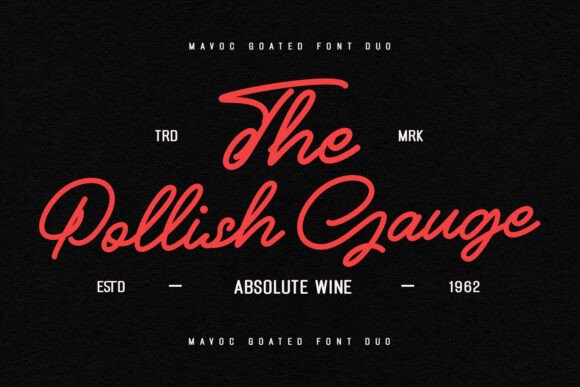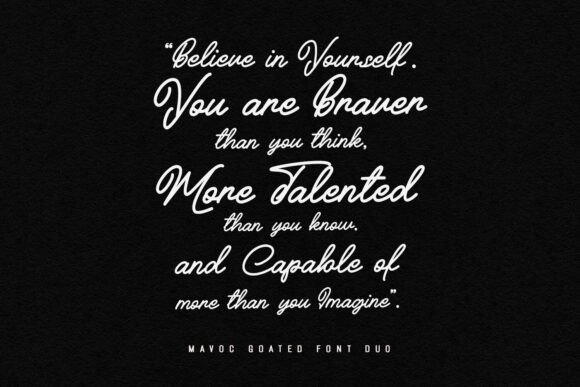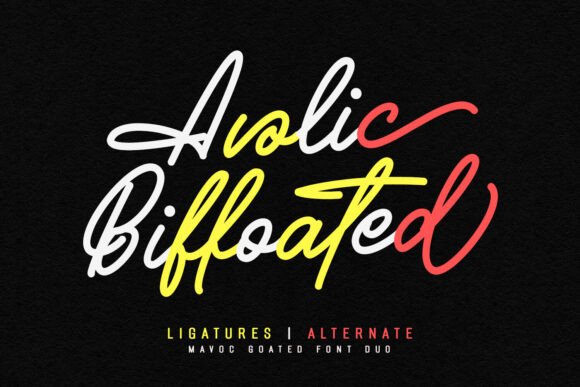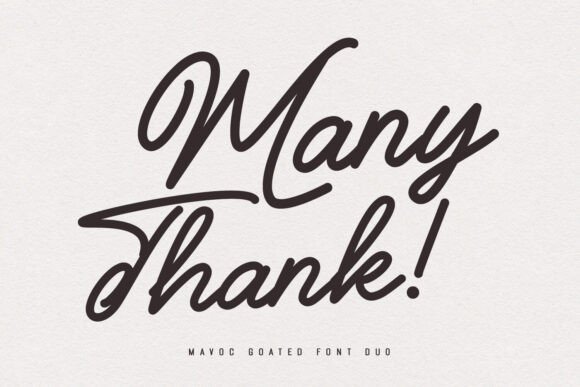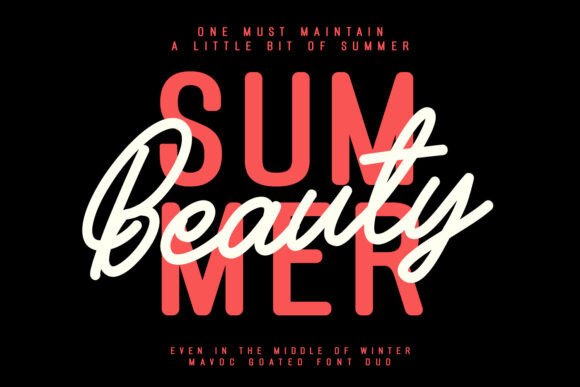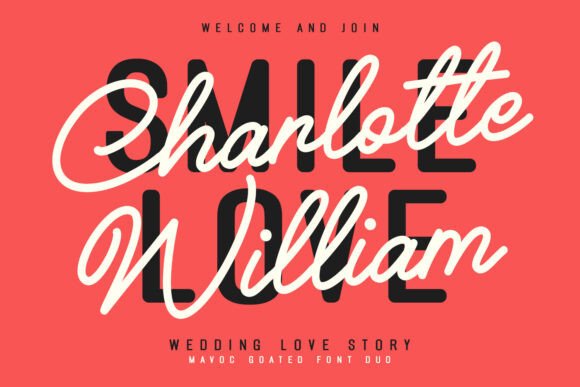
Introduction to Mavoc Goated Font
Macoc Coated is a stylish font duo featuring a bold monoline signature script paired with a clean sans serif.
This dynamic combination is ideal for branding, magazine headers, packaging, and social media designs that crave modern elegance and flair .
Key Features of Mavoc Goated Font